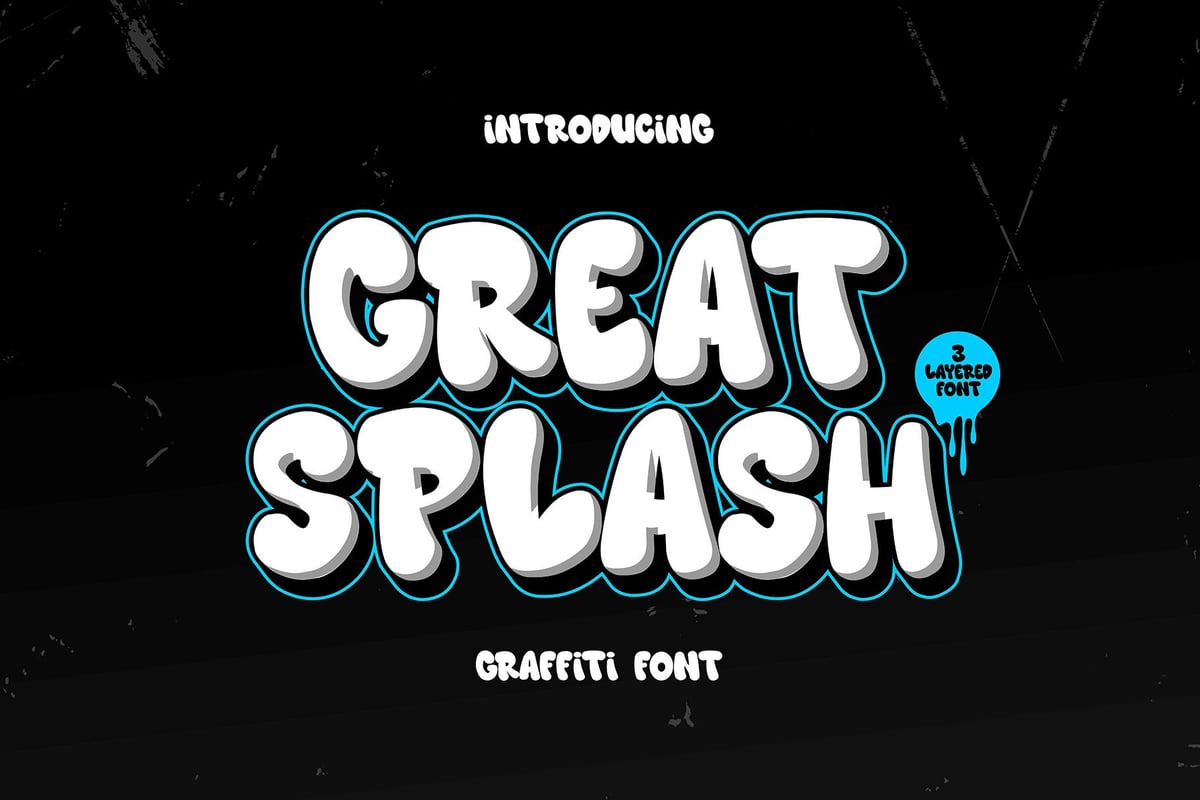
Great Splash
Great Splash is a bold, electrifying 3-layered graffiti font that bursts with urban energy. Perfectly capturing the raw essence of street art, this font transforms your designs into eye-catching masterpieces full of character and attitude.